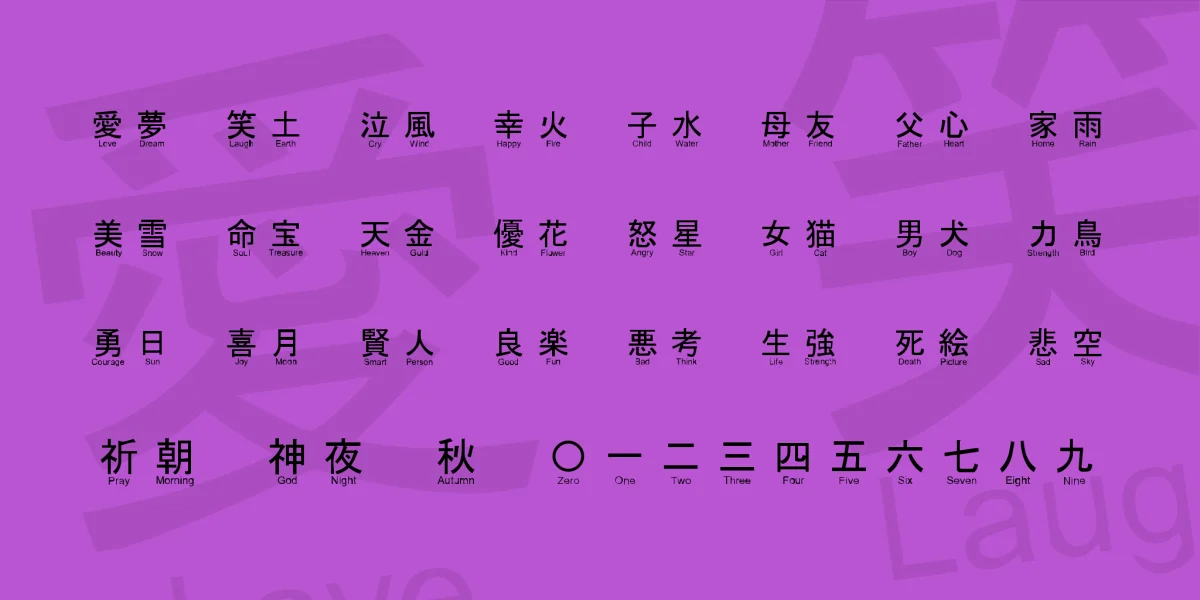
A taste of Japanese pictography.
Note:: Just because I mention these characters are Japanese, it does not mean I'm implying that they're not Chinese also. There are common characters in Japanese and Chinese -- (most of) these characters probably fall into this "common to Japanese and Chinese" category. The only reason I hesitated to say "all these characters are Chinese also" is because I do not speak/read/write Chinese.
I'm actually flattered that my font generated all this discussion! But please, let's not argue over whether it's Japanese or Chinese, because it's BOTH (through the consensus of those who have commented), not EITHER/OR :)